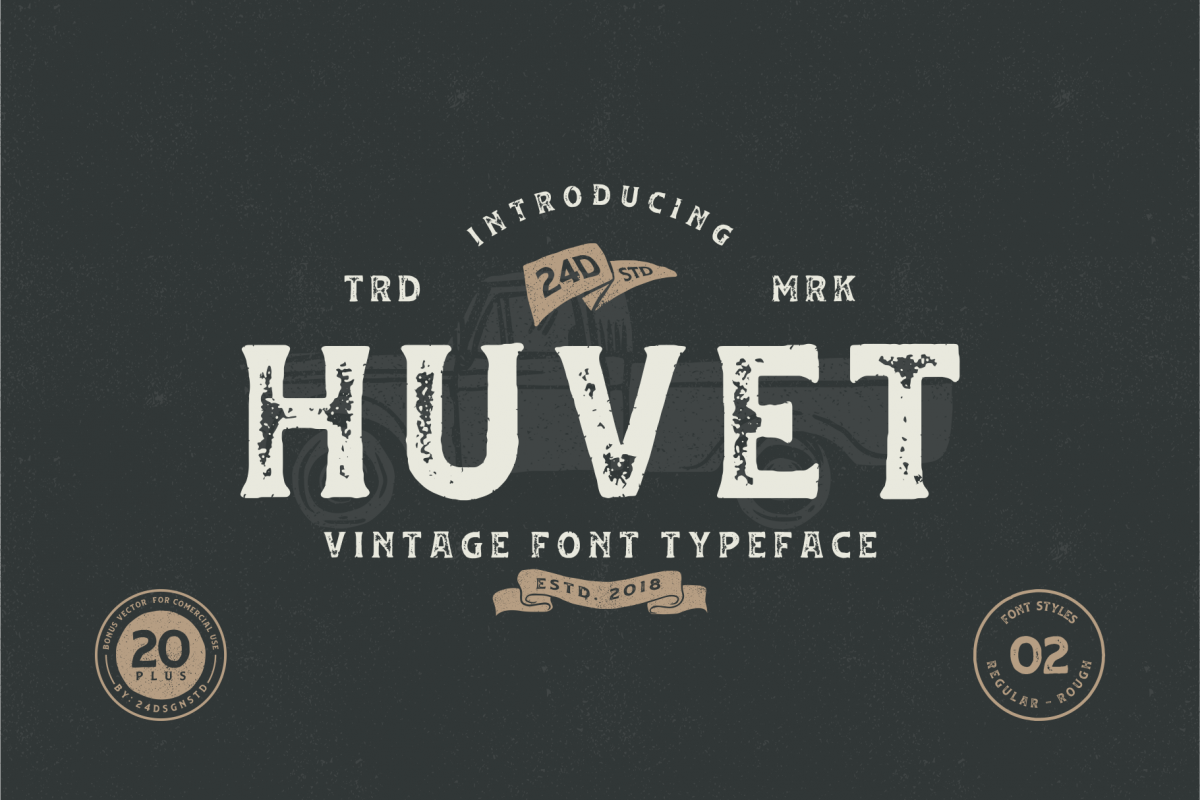
Huvet Typeface
Huvet-Regular
Huvet-Rough
Huvet Font is a striking display font. Its masculine style makes it perfect for logos, typography, and product labels that require a classic and masculine touch.